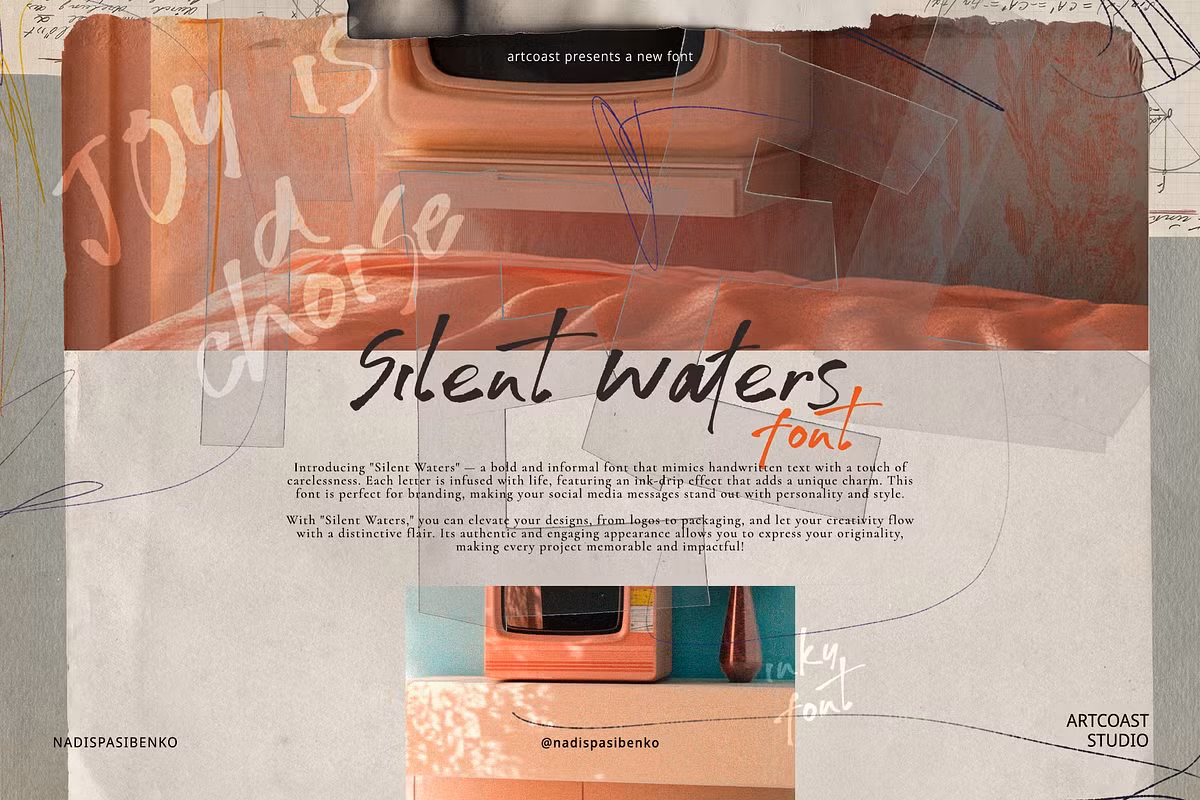
Elegant Inky Font - Silent Waters Free Download
Elegant Inky Font - Silent Waters Free Download is a beautifully crafted script typeface that blends fluid ink strokes with an elegant design, creating a timeless and artistic feel. Its delicate curves and refined character make it ideal for crafting sophisticated logos, invitations, branding, and artistic projects. Whether you're designing for a luxury brand, a wedding event, or a creative campaign, Elegant Inky Font - Silent Waters Free Download adds an organic, handwritten charm to your work. Its versatility allows it to stand out in both modern and classic designs. Experiment with its graceful design in personal projects before purchasing a commercial license, and bring elegance and creativity to your designs with this stunning font.